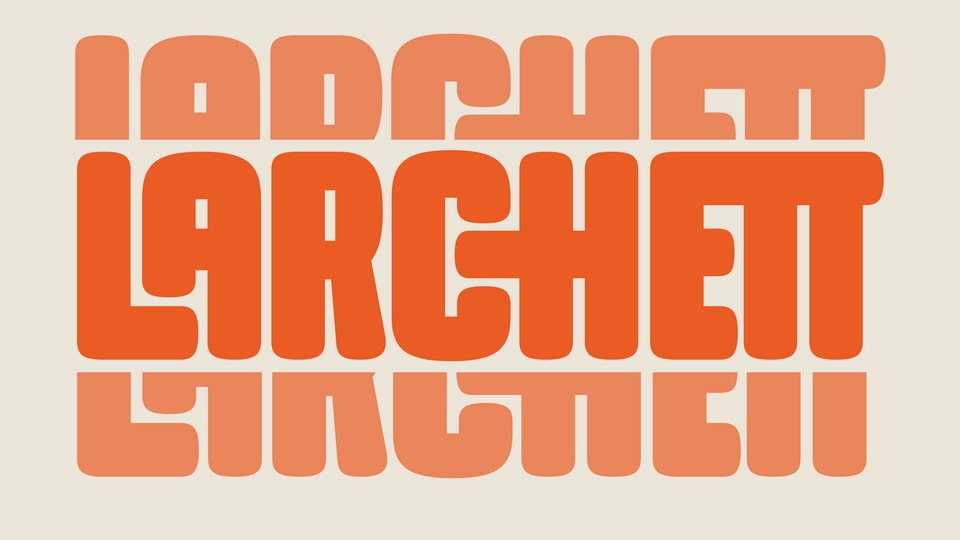
Download SG Larchett font, a stunning sans serif typeface that is perfect for display purposes. It features clean, elegant lines and a modern, minimalist design that is both stylish and versatile.
Designer: Studio Gulden